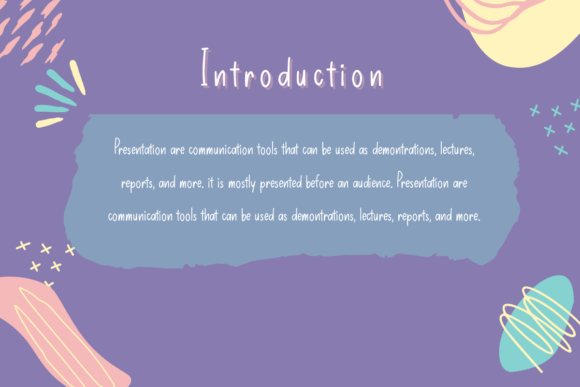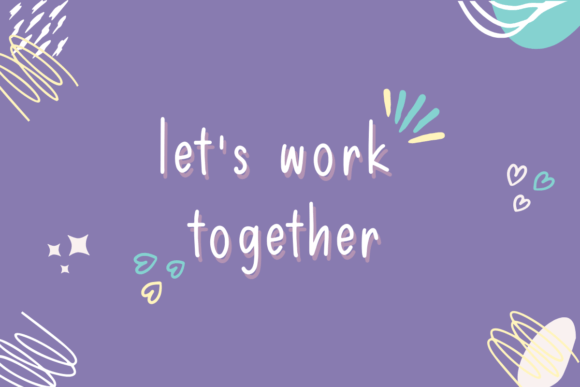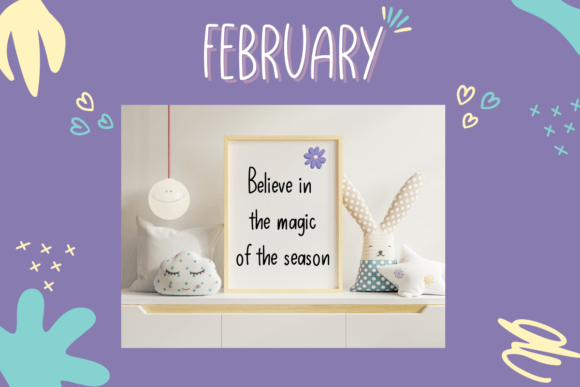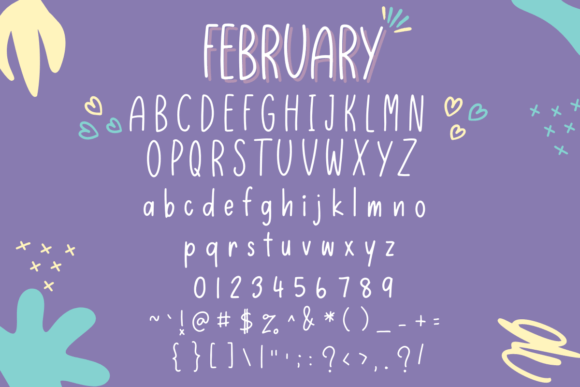
Introducing February Font: The Perfect Blend of Elegance and Authenticity
Are you tired of using the same old fonts in your design projects? Look no further! February Font is here to revolutionize the way you approach typography. This stunning font is the result of a unique pairing of a brush pen and pencil, giving it an endearing and authentic feel that’s sure to elevate your designs to new heights.
The Story Behind February Font
February Font is more than just a font – it’s a work of art. Created with a brush pen and pencil, this font combines the fluidity of a brush pen with the precision of a pencil, resulting in a truly unique and captivating aesthetic. The font’s creator aimed to capture the essence of hand-drawn typography, and the result is a font that’s both elegant and authentic.
What Makes February Font So Special?
February Font is a versatile font that can be used in a wide range of design projects, from branding and headings to wedding designs, invitations, signatures, logos, labels, and more. Its unique blend of elegance and playfulness makes it perfect for designers and crafters looking to add a personal touch to their work.
Key Features of February Font
- Unique and Authentic Style: February Font boasts a one-of-a-kind style that’s both elegant and playful.
- Highly Versatile: Use February Font in a variety of design projects, from branding and headings to wedding designs and invitations.
- Easy to Read: Despite its unique style, February Font is highly legible, making it perfect for use in body text and headings.
How to Use February Font in Your Design Projects
February Font is incredibly easy to use and can be incorporated into a wide range of design projects. Here are a few ideas to get you started:
- Branding: Use February Font to create stunning brand identities that stand out from the crowd.
- Wedding Designs: Add a touch of elegance and romance to your wedding designs, invitations, and stationery.
- Headings and Titles: Use February Font to create eye-catching headings and titles that grab attention.
- Invitations and Signatures: Create beautiful invitations, signatures, and logos that showcase your personality and style.
Why Designers and Crafters Love February Font
February Font has quickly become a favorite among designers and crafters, and for good reason. Here are a few reasons why:
- Unique Style: February Font offers a fresh and unique style that’s hard to find in other fonts.
- Ease of Use: February Font is incredibly easy to use and can be incorporated into a wide range of design projects.
- High-Quality Design: February Font is designed with high-quality and attention to detail, making it perfect for professional designers and crafters.
In conclusion, February Font is a game-changer for designers and crafters looking to elevate their design projects to new heights. With its unique blend of elegance and authenticity, this font is sure to capture the hearts of designers and audiences alike. So why wait? Download February Font today and start creating stunning designs that showcase your personality and style.